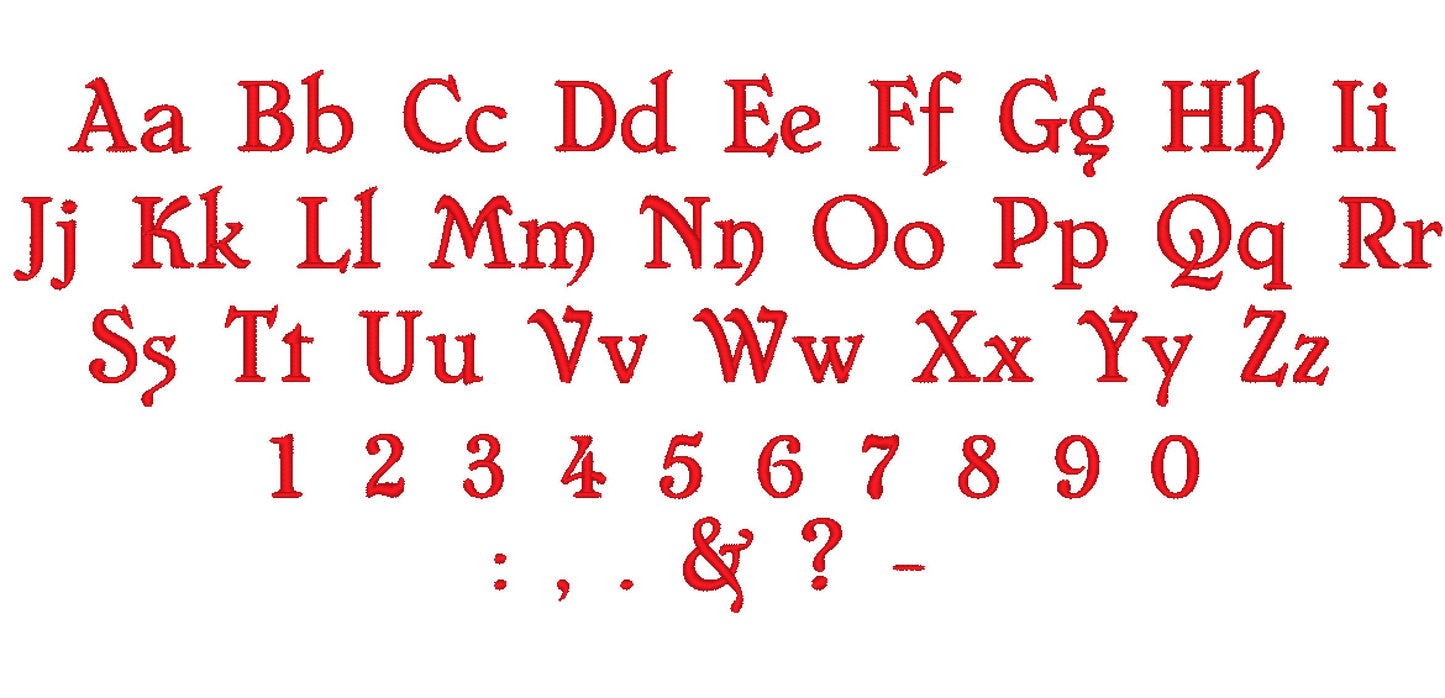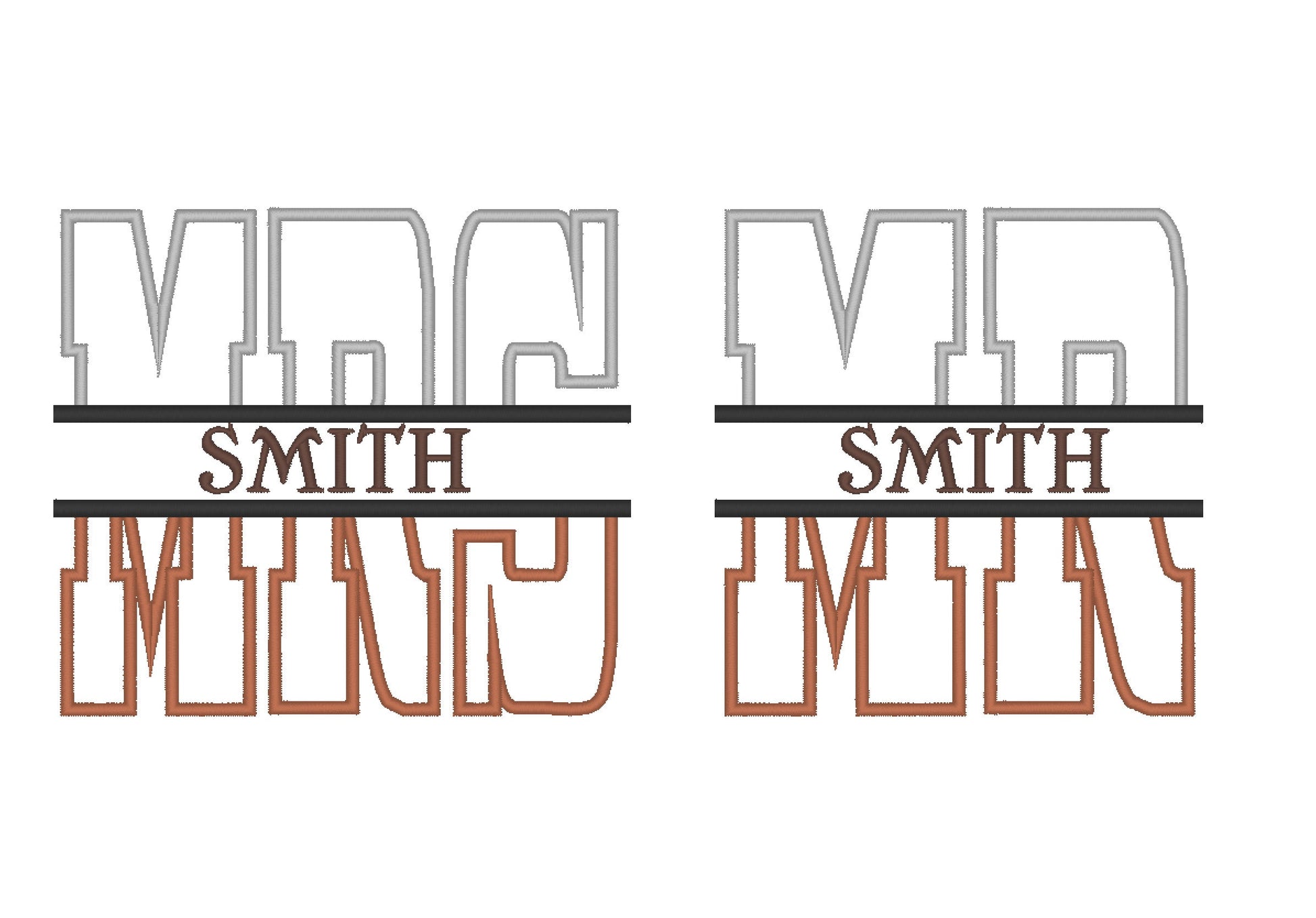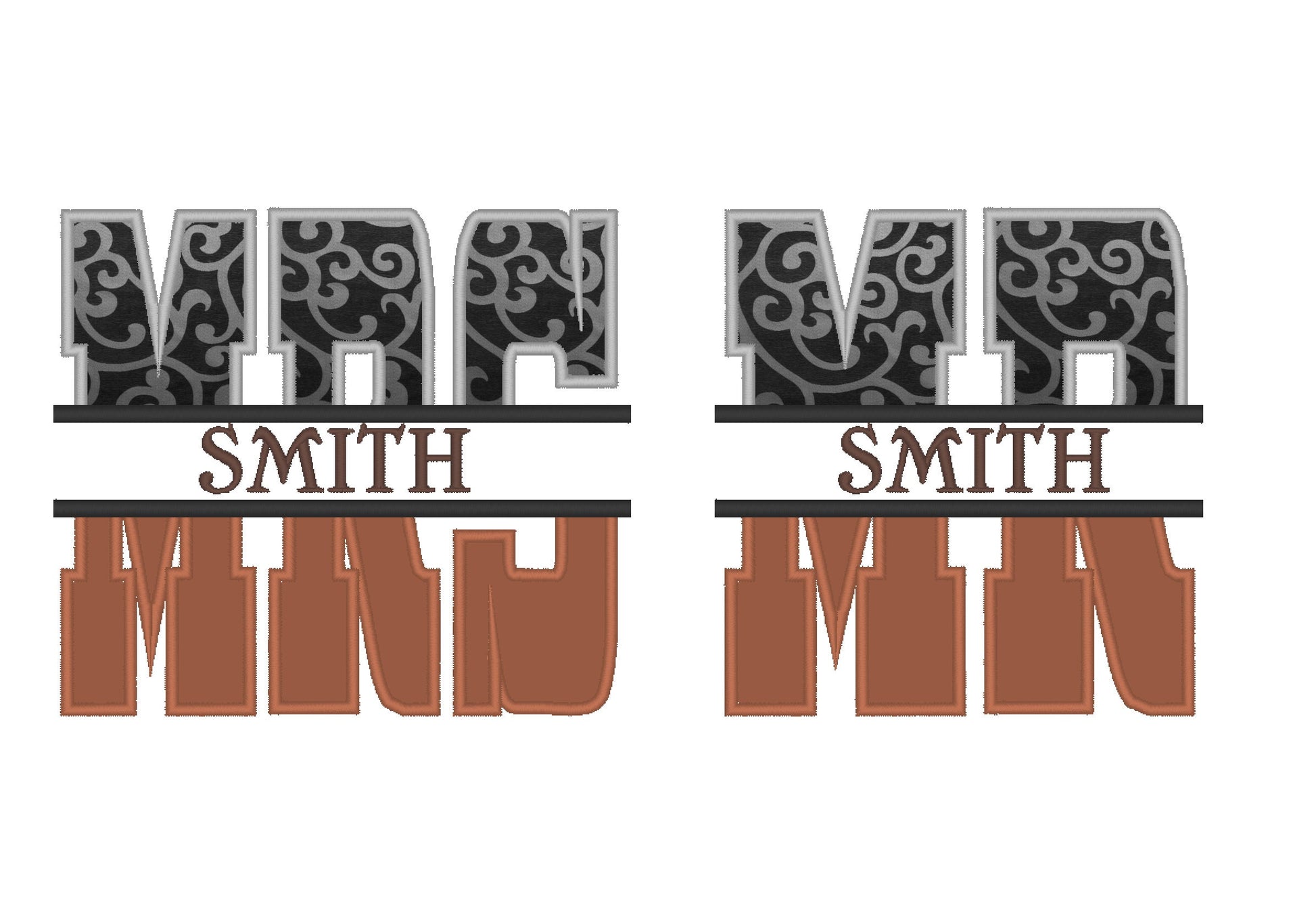
MR and MRS Split Monogram
Or click to open the linkA split Mr and Mrs applique monogram with a mini font for names. A sweet wedding gift for towels, garden flags and cushions.
Separate Mr and Mrs appliques, split to leave room for names, in 3, 4, 5, 6 and 8 inches. The mini font has uppercase and lowercase letters, numbers 0 to 9 and punctuation in seven sizes: 0.4, 0.6, 0.8, 1, 1.2, 1.6 and 2 inches.
- Split Mr and Mrs applique monogram, 3 to 8 in
- Mini font, uppercase and lowercase letters, numbers 0 to 9
- Font in 7 sizes, 0.4 to 2 in